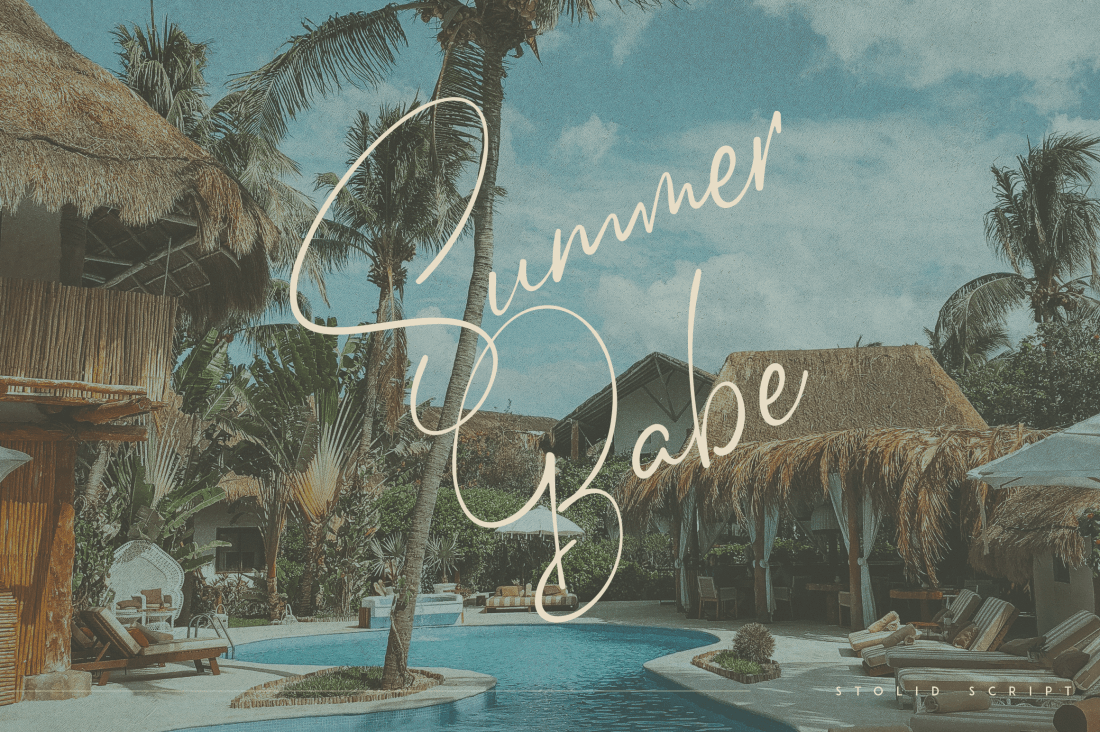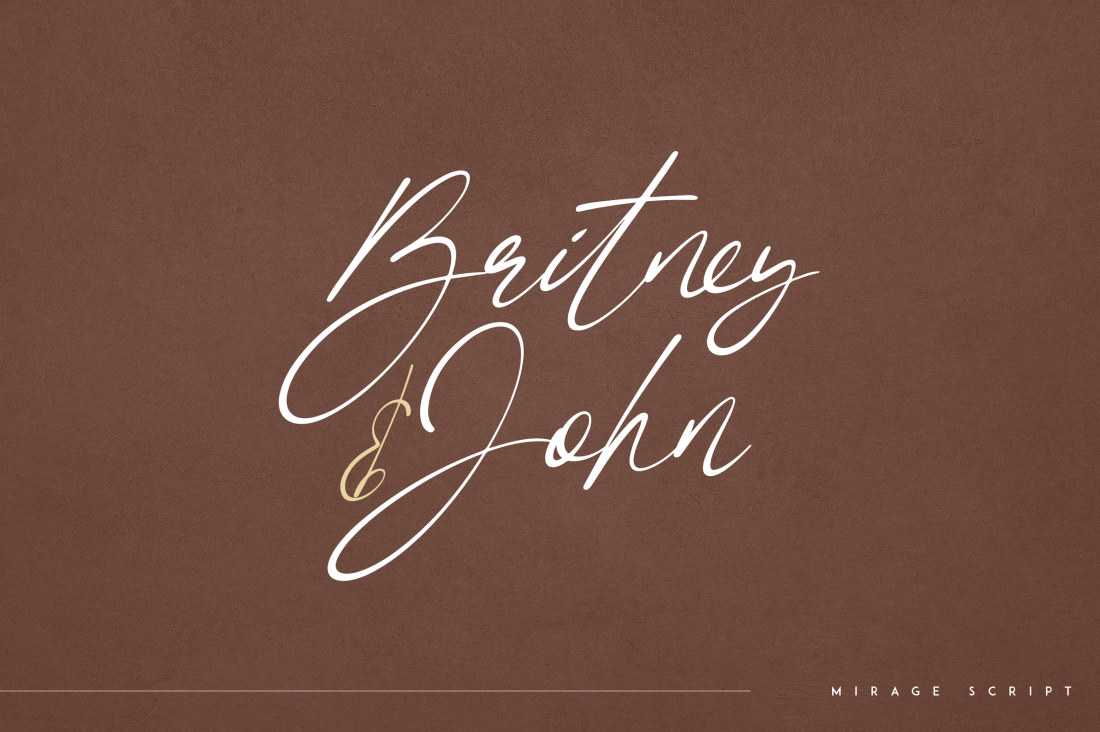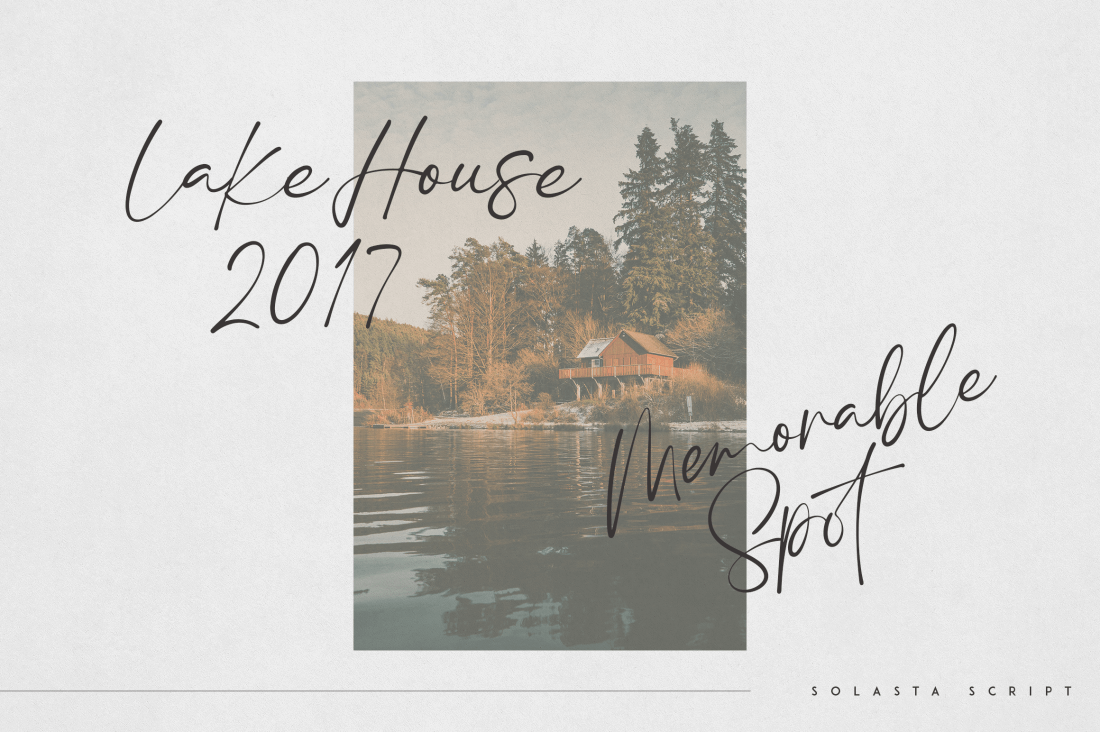
Font Bundle Vol. 4
Meet Font Bundle vol.4 — a chic ensemble of 10 script fonts that are ready to take your design game to the next level.
This collection comes fully loaded with ligature glyphs and multilingual support, making it as versatile as it is elegant. Whether you’re crafting large banners or adding tiny text details, these fonts are your go-to buddies.
Feel the romance of a handwritten letter from your long-lost love with Font Bundle vol.4!
Font Bundle vol. 4 is a dream come true for branding projects, homeware designs, product packaging, and magazine headers. Or, use it to add a touch of style to any background image.
Here’s what’s included in your brand-new bundle:
- Snarf: A modern script that’s as fun as its name.
- Obviate: An organic script font that adds a natural feel.
- Kith: A handmade script font that brings a touch of charm.
- Stolid: A modern script font that’s crisp and clean.
- Polymath: An organic script font that’s as smart as it sounds.
- Kairos: A modern script for timeless designs.
- Quixotic: A handmade script font that’s delightfully whimsical.
- Solasta: An organic script font that’s truly radiant.
- Mirage: A creative script font that’s beautifully elusive.
Highlights:
- Uppercase, lowercase, numerals, punctuation & symbols;
- Ligature glyphs;
- Multilingual support;